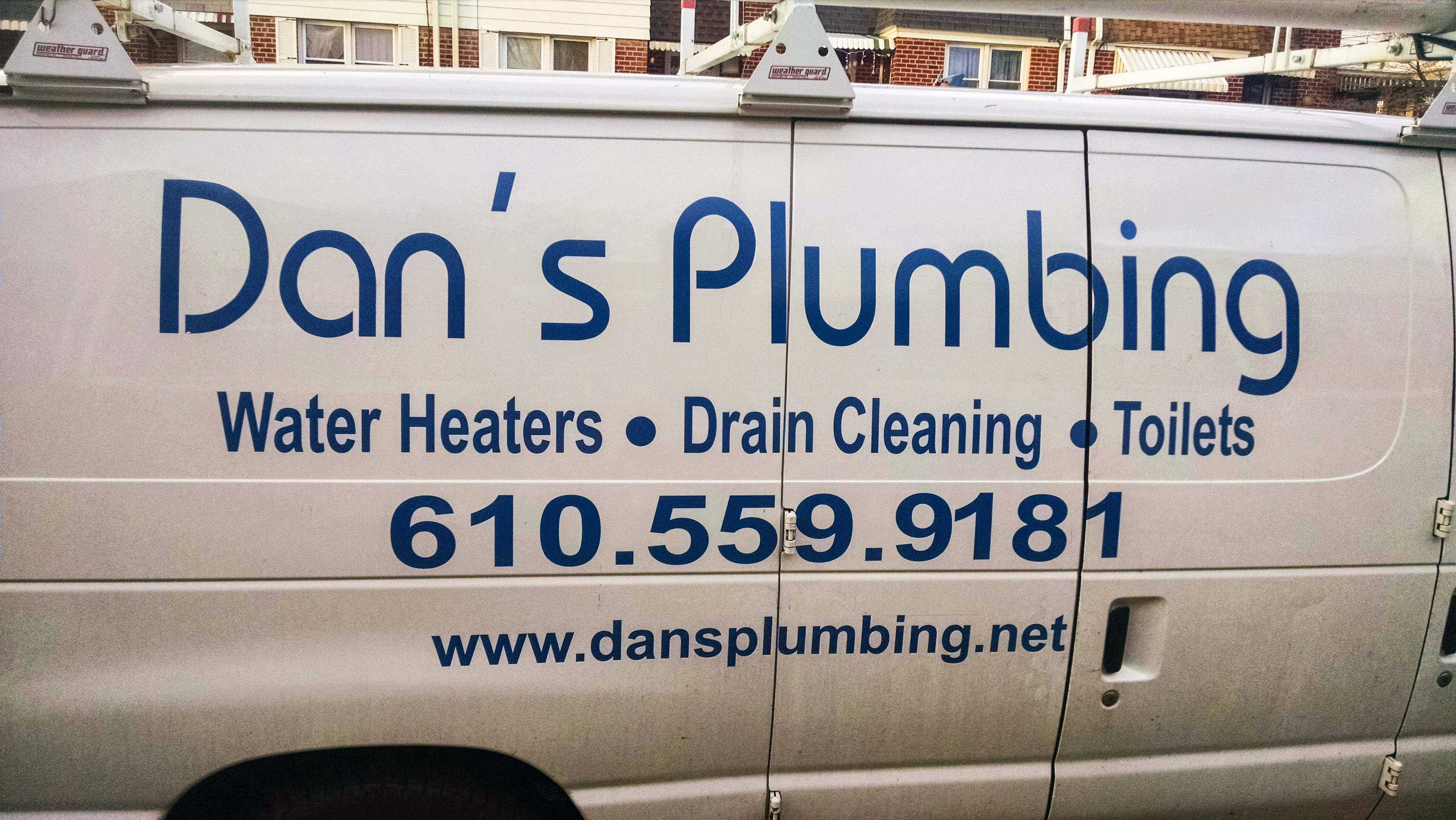
Can any help me find this font?
Bauhaus (ITC version?)
ok so the best I could find is "Baumans"  I think this is close. Doesn't have the gap in the d but I can live with it.
Bauhaus (ITC version?)